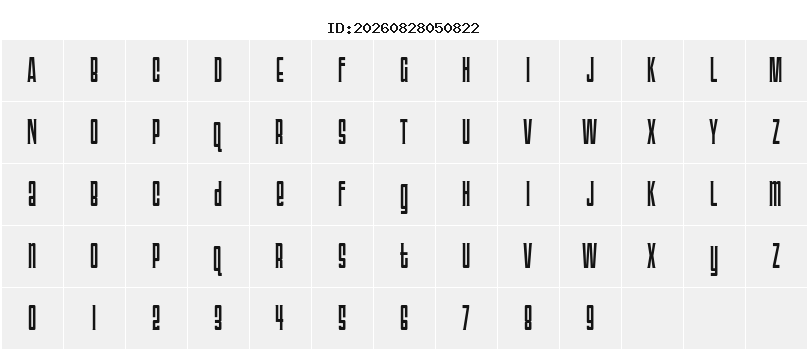
• Font Name: Triac SeventyOne
• Designer: Ray Larabie
About Triac SeventyOne.ttf
Triac SeventyOne.ttf is a modern, elegant sans-serif font designed for ultimate readability and visual harmony. Perfect for branding, headlines, web design, and print materials.